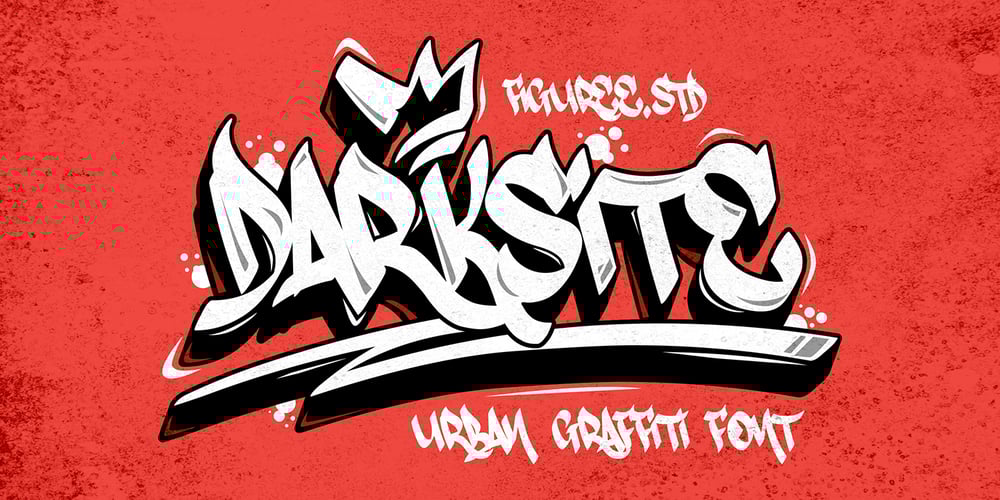
Darksite Font Family was designed by Icep Anwar Fadhil and published by Figuree Studio. Darksite contains 1 styles and family package options. Hello, this is Darksite – Urban Graffiti Font!This font was designed so that users can use it more easily and make graffiti designs easier. Darksite is very suitable for use in various media such as; packaging, logos, labels, posters, shirt designs, bulletins, typography, and many other media, especially with graffiti look.Features: All-caps PUA Encoded open Support for MAC or PC Simple installation for Adobe Illustrator, Corel Draw, Photoshop, or Procreate (New Updated) Bonus Swash That’s it! If you have any questions don’t hesitate to ask! Stay Classy!